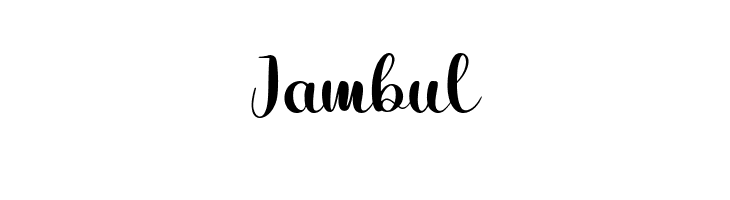
A bold, angular font with a rugged, ancient stone-carved appearance.
A bold, outlined mechanical font with a strong, industrial style.
A bold, hand-drawn font with a shadow effect and sketch-like quality.
A geometric, boxed font with a modern, mechanical style.
Illustrations of constellations with names in a decorative script.
A playful, handwritten font with bold, rounded characters and a slight slant.
A playful and elegant script font with flowing, cursive letterforms.
A bold, futuristic font with geometric, blocky characters and rounded edges.
A bold, angular font with a distressed and dynamic style.
A playful sans-serif font with crown-adorned letters, offering a regal and whimsical style.
A smooth, flowing script font with a natural handwriting style.
A tall, narrow, hand-drawn font with thin, elongated strokes.
A playful, shaded, 3D font with bold outlines and diagonal line fills.
A playful, hand-drawn font with tall, narrow characters and a whimsical style.
A dynamic and expressive handwritten font with fluid strokes and a natural flow.
A bold, rounded, semi-italic font with a modern and dynamic style.
A bold, oblique sans-serif font with a modern and dynamic style.
A flowing, elegant cursive font with interconnected characters and moderate stroke contrast.
A bold, dripping font perfect for horror-themed designs.
A bold, geometric font with a modern, industrial style.
A classic serif font with elegant strokes and refined proportions.
A playful, hand-drawn font with rounded, elongated characters.
A modern serif font with elegant, elongated letterforms and subtle serifs.
A playful, hand-drawn font with bold strokes and a whimsical style.
A bold, heavy font with tall, narrow letterforms and high contrast strokes.
A flowing, cursive font with elegant loops and swashes, perfect for creative projects.
A bold, expanded font with wavy, irregular edges for a playful look.